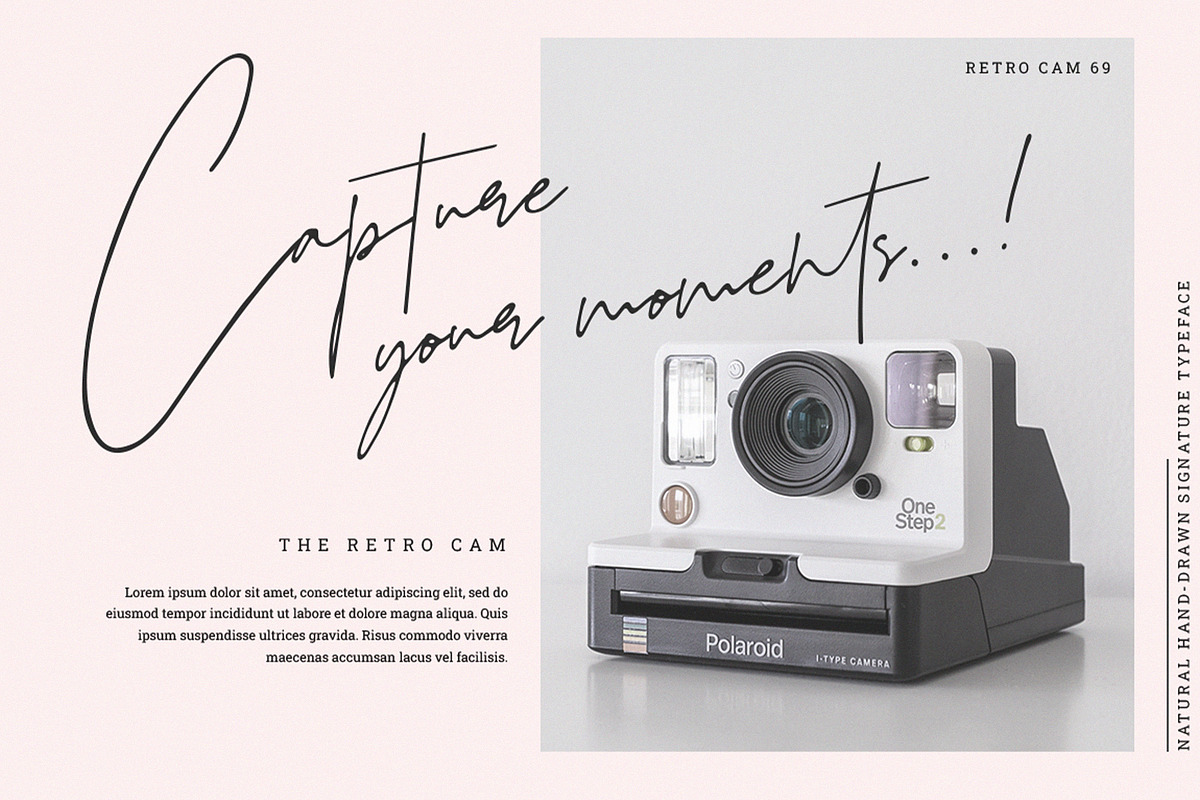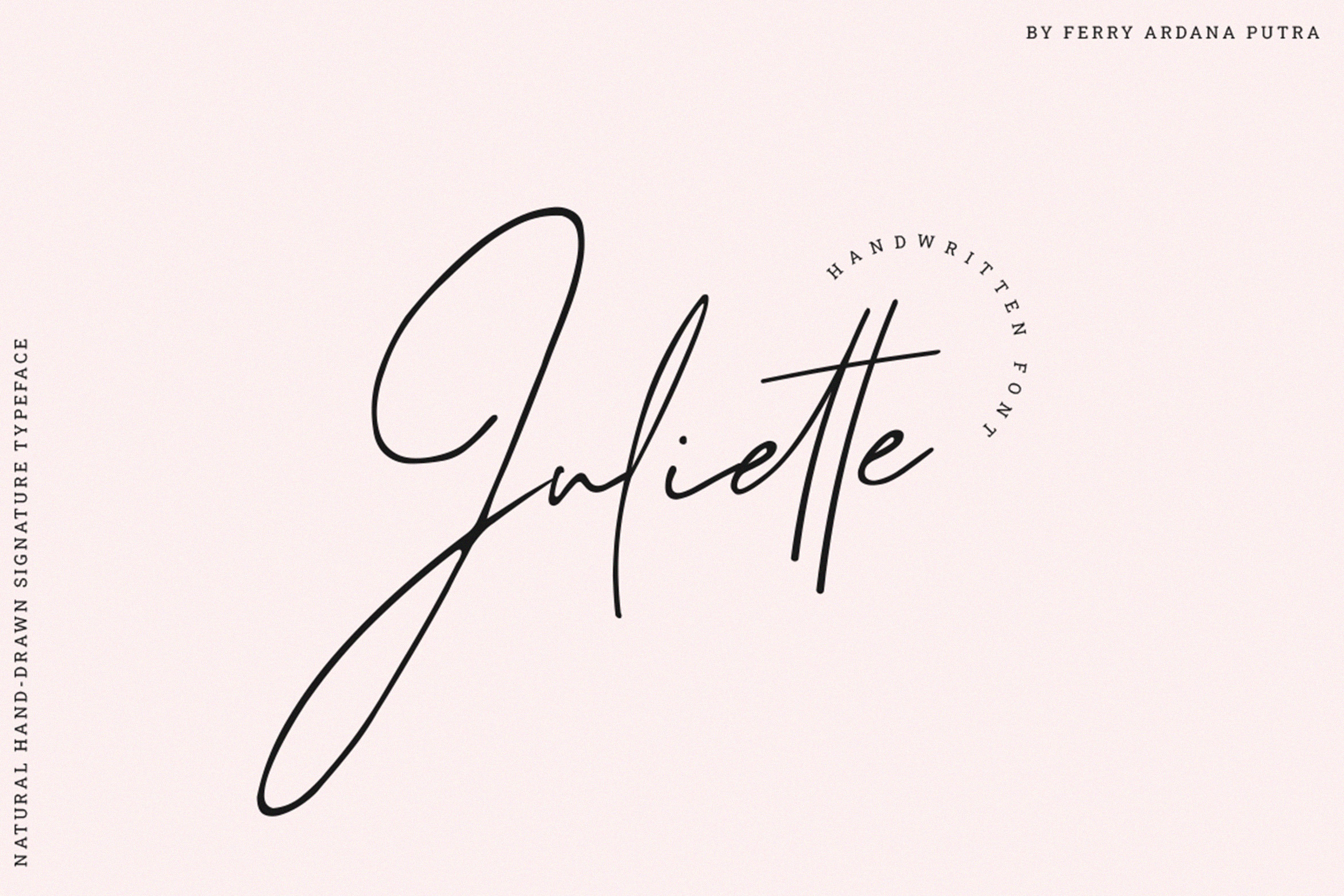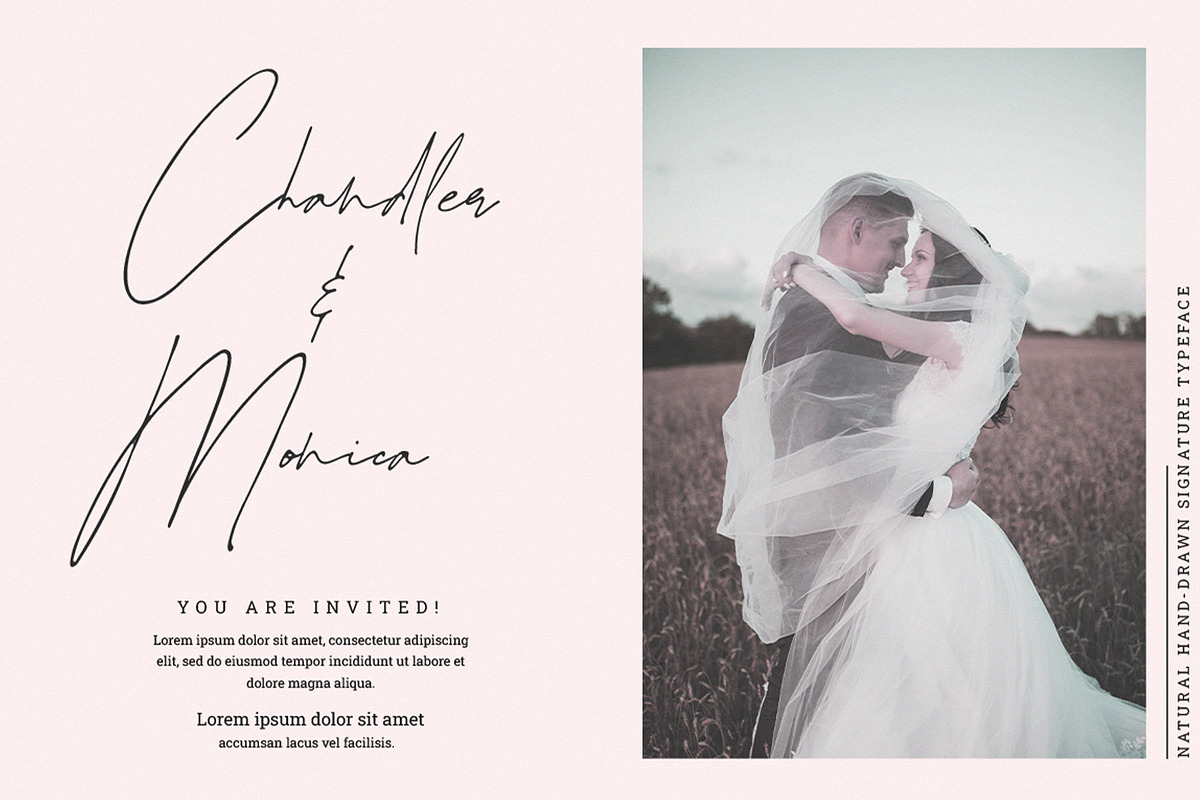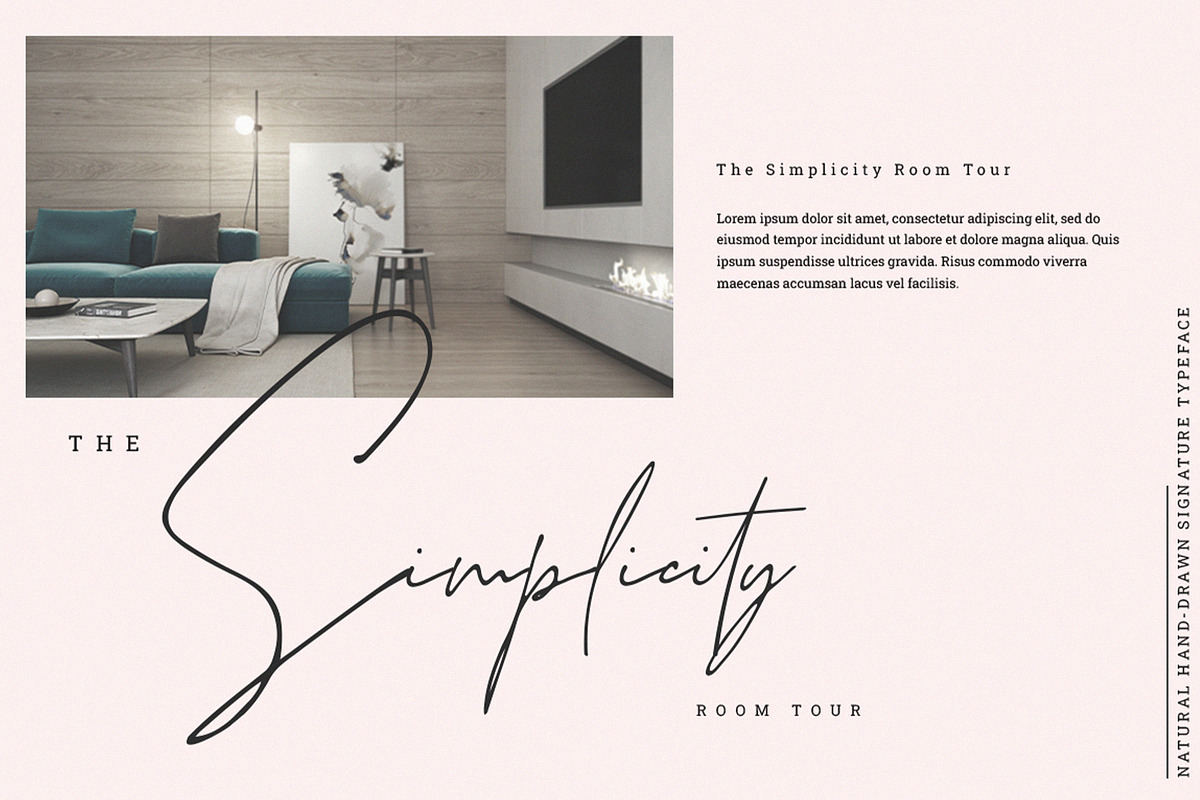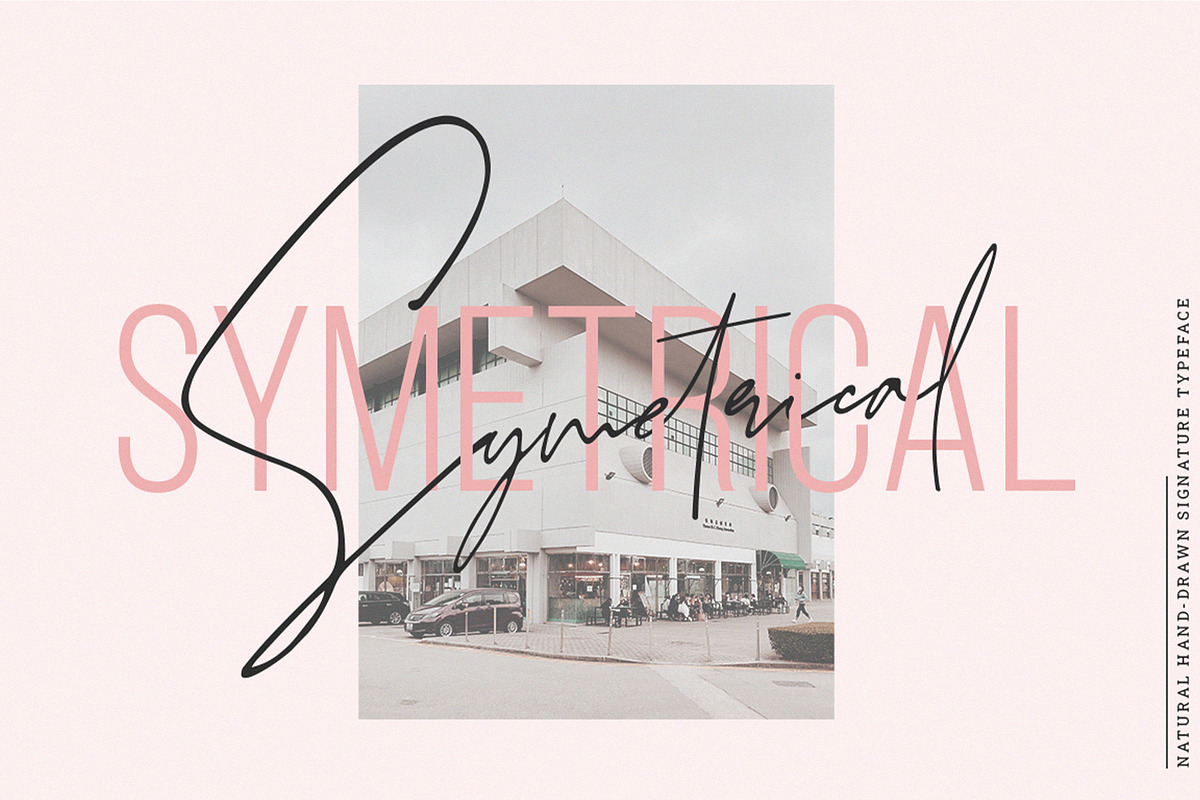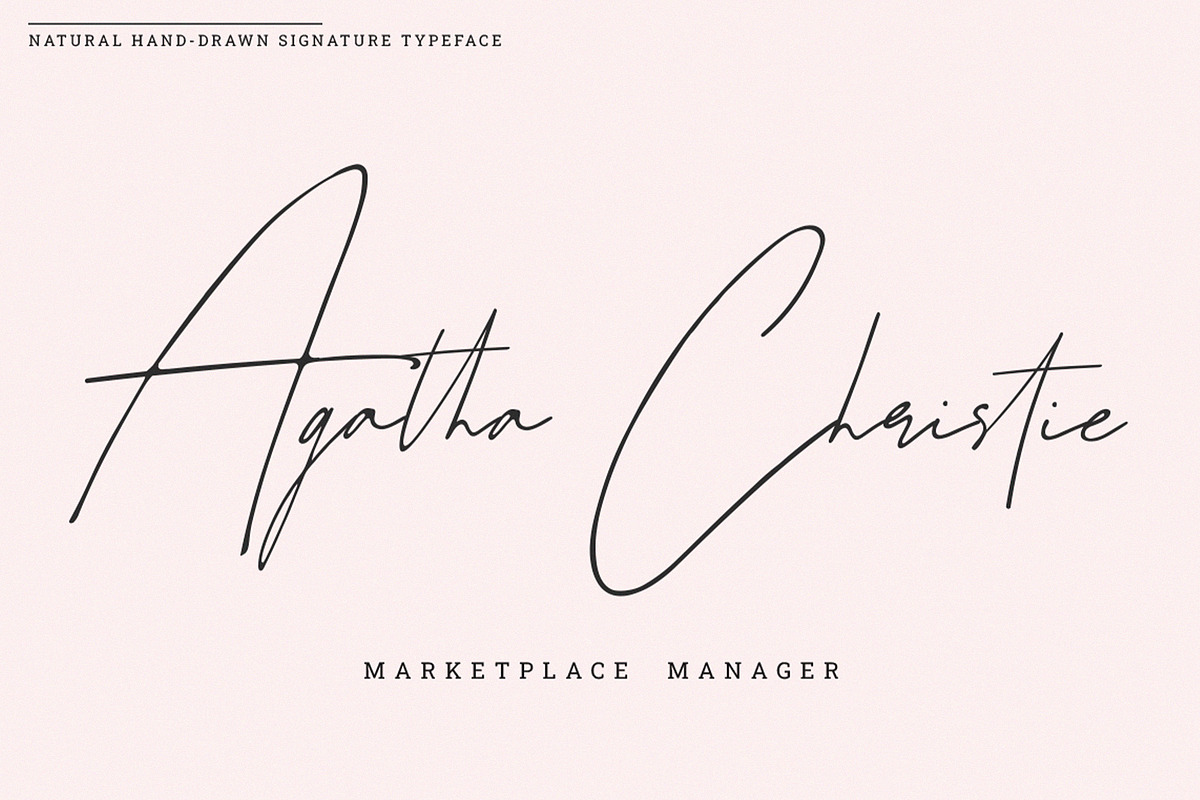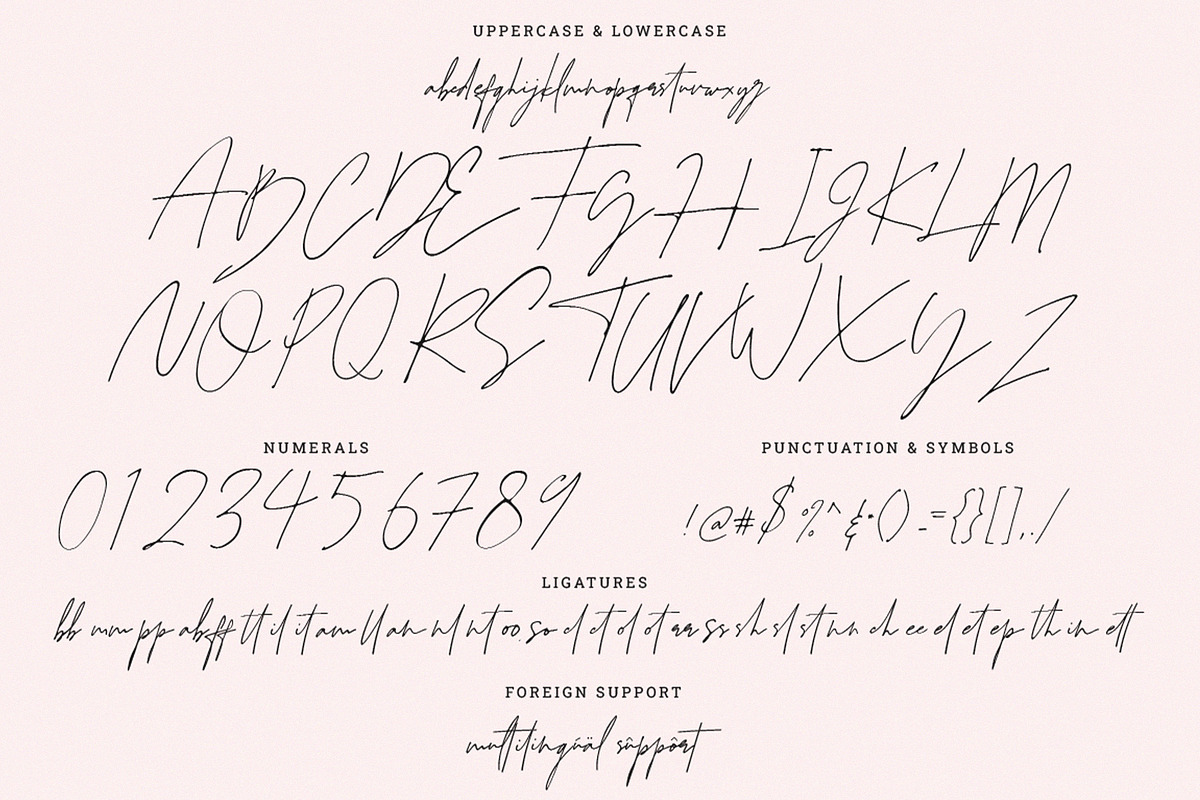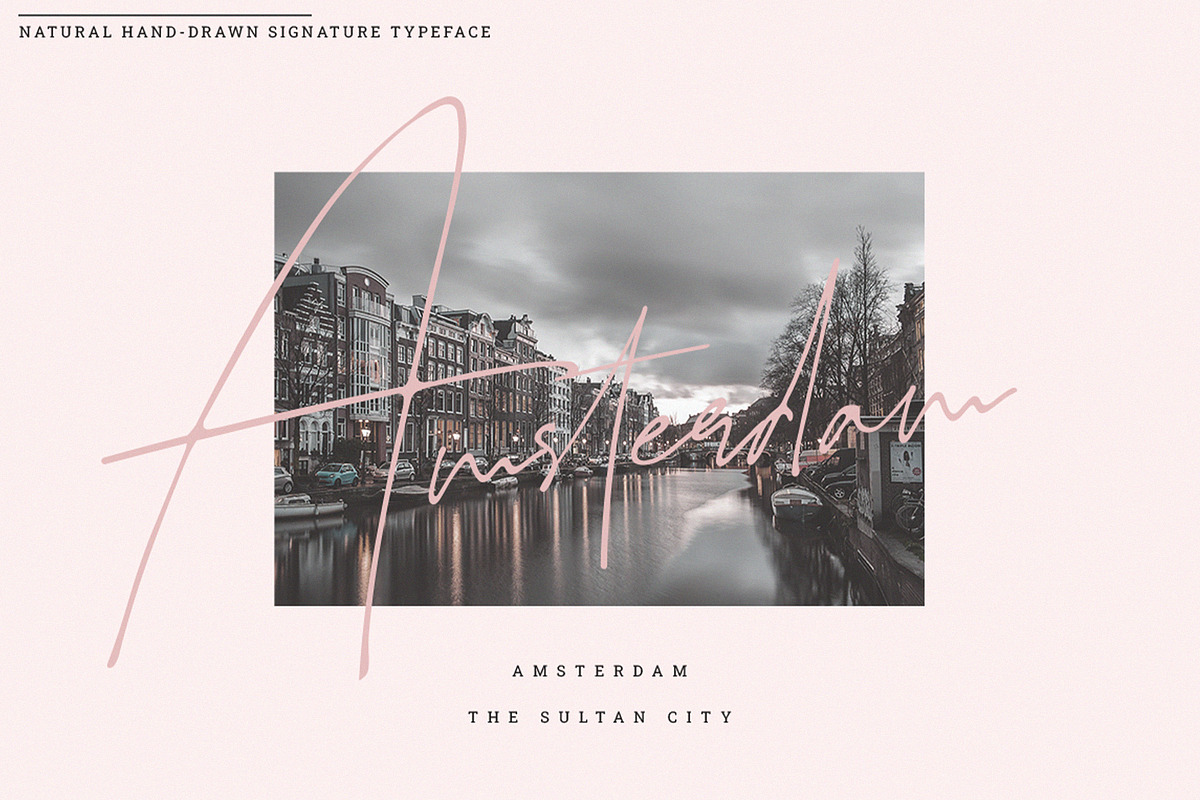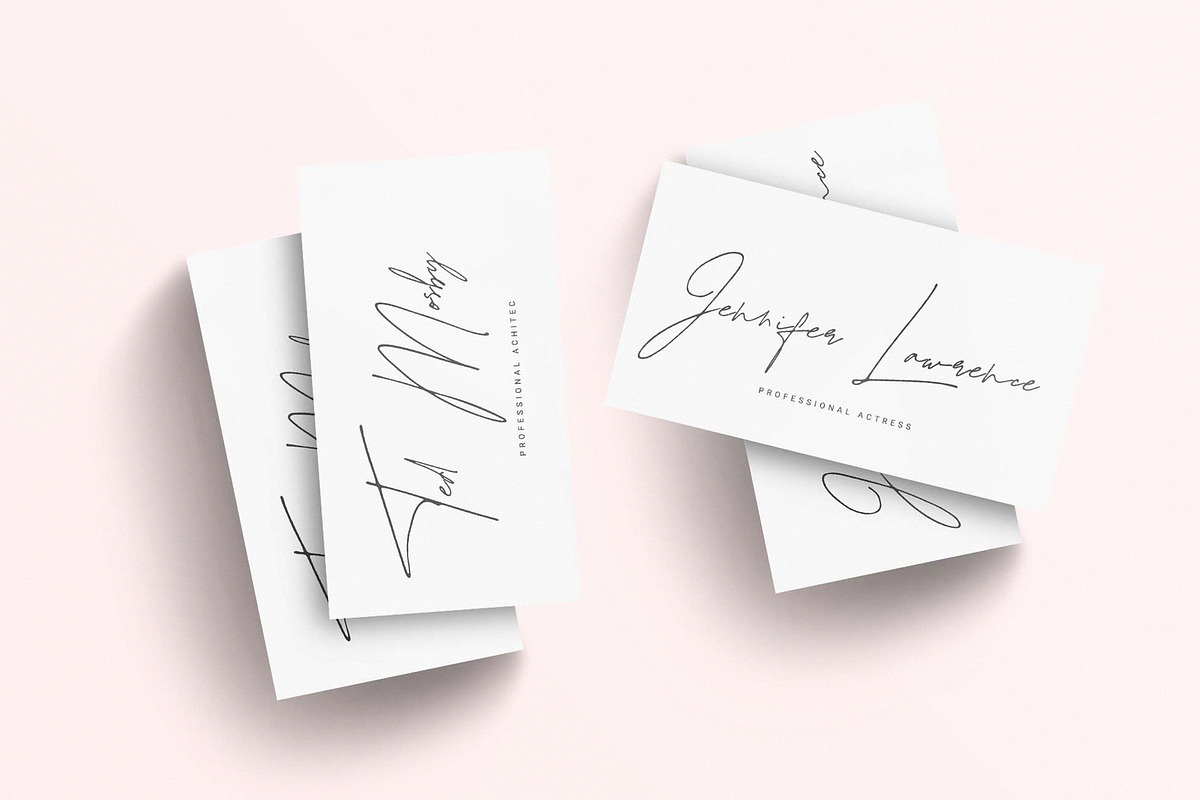
Juliette | Natural Signature Font
Juliette is natural hand-lettered font manufactured using High Tech-c Pen.
This font is very natural because we made it from scratch and we maintain it carefully to make it more natural-like, just like messy write!
You will get a full set of lowercase and uppercase letters, numerals and punctuation, multilingual symbols, alternate lowercase, and a pack of ligatures. This font is suitable for branding, signature, wedding invitation, promotion, product packaging, and other needs. This font is natural, simple, but still authentic and very stylish.
Juliette Features:
A full set of upper & lowercase characters
Multilingual language support
PUA Encoded Characters
OpenType Features